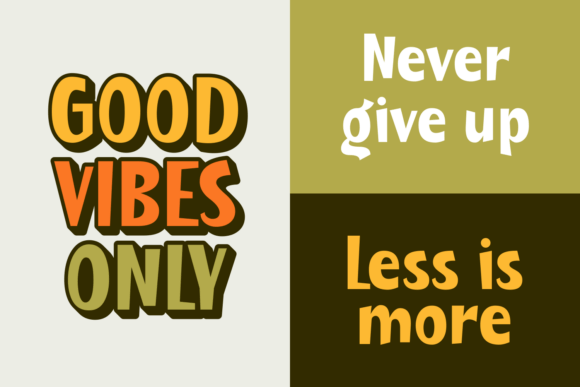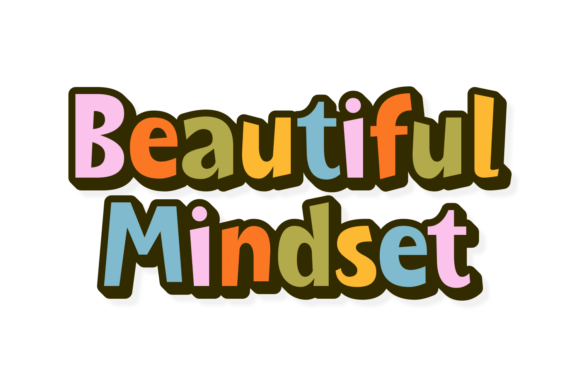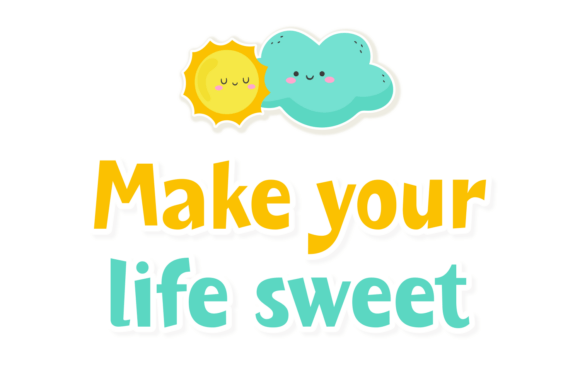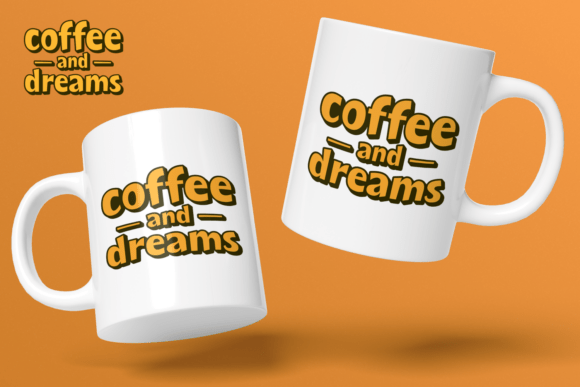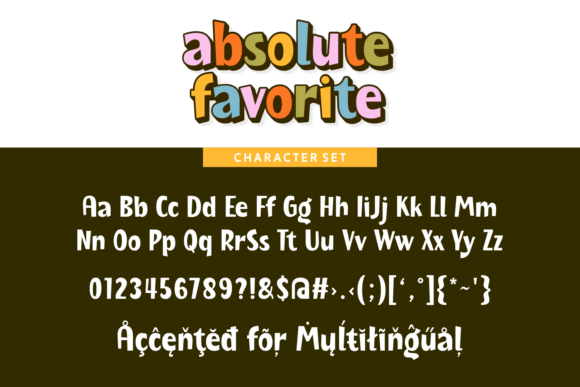
Discover the Delightful Charm of “Absolute Favorite” Font
Are you on the hunt for a font that exudes joy, enthusiasm, and a touch of elegance? Look no further than “Absolute Favorite,” a captivating Display Font that is sure to steal your heart. This enchanting typeface boasts a delightful cartoon style that instantly grabs attention and leaves a lasting impression. With its perfect blend of fun and sophistication, “Absolute Favorite” is an ideal choice for designers and crafters seeking to add a dash of whimsy to their projects.
The Allure of “Absolute Favorite”
At first glance, “Absolute Favorite” falls in love with our eyes through its joyful and fun charm. This font’s chunky yet delicate design strikes a perfect balance between enthusiasm and elegance, making it a versatile choice for various applications. Whether you’re working on book covers, apparel designs, or greeting cards, this font is sure to anchor every headline with a comic book flair that captivates audiences of all ages.
A Favorite Among Kids and Designers Alike
“Absolute Favorite” is an absolute favorite among kids, and it’s easy to see why. Its enticing chunkiness gives way to a cute appeal that is both visually striking and endearing. Designers and crafters will appreciate the font’s versatility, as it’s perfect for creating striking apparel designs, trendy t-shirts, and engaging publications. The font’s fresh and authentic feel makes it an excellent choice for summer publications, Easter-themed designs, and Eastern European-inspired projects.
Design Possibilities are Endless
The possibilities are endless with “Absolute Favorite.” This lovely font carries the spirit of Easter and the mystic charm of Eastern European designs, making it perfect for:
- Book covers and captivating titles
- Apparel designs and trendy t-shirts
- Product packaging and labels
- Posters and magazine layouts
- Quotes and brand design
A Unique and Clean Finish
“Absolute Favorite” imparts a unique, clean finish on cards and magazine layouts, making it an excellent choice for designers seeking a professional yet playful look. The font’s delightful charm also breathes life into brand design, sprinkling joy across quotes and adding a touch of personality to any project.
Why Choose “Absolute Favorite”?
So, why choose “Absolute Favorite” over other fonts? Here are just a few reasons:
- Unique and eye-catching design: “Absolute Favorite” boasts a one-of-a-kind design that is sure to grab attention.
- Versatility: This font is perfect for a wide range of applications, from book covers to apparel designs.
- Fresh and authentic feel: “Absolute Favorite” has a fresh and authentic feel that makes it perfect for summer publications and Easter-themed designs.
- Easy to read: Despite its chunky design, “Absolute Favorite” is easy to read, making it perfect for body text and headlines.
In conclusion, “Absolute Favorite” is a captivating Display Font that is sure to delight designers and crafters alike. With its perfect blend of fun, enthusiasm, and elegance, this font is perfect for adding a dash of whimsy to any project. Whether you’re working on book covers, apparel designs, or greeting cards, “Absolute Favorite” is an excellent choice. So, why not give it a try and see the magic for yourself?